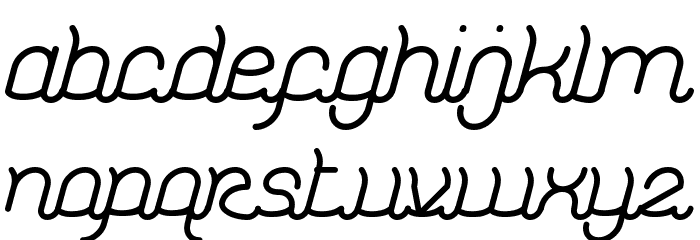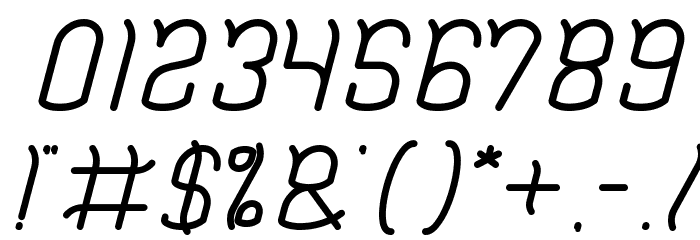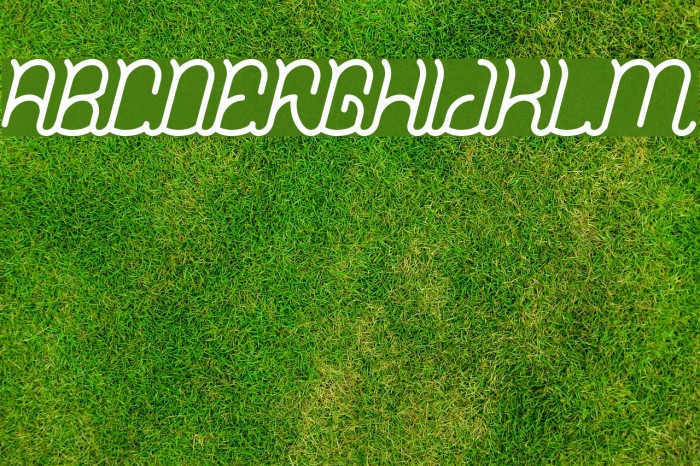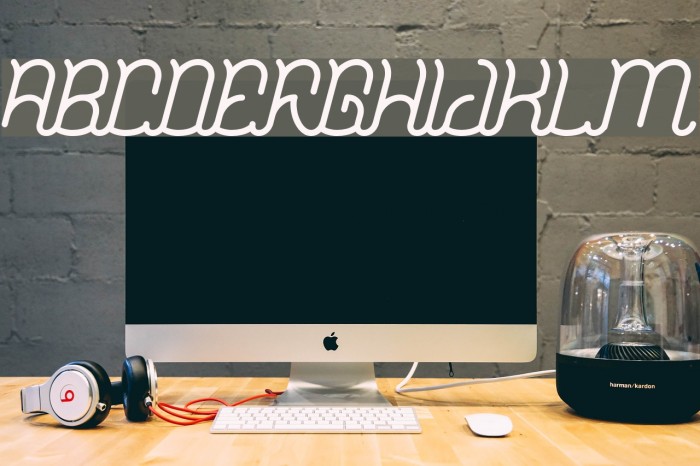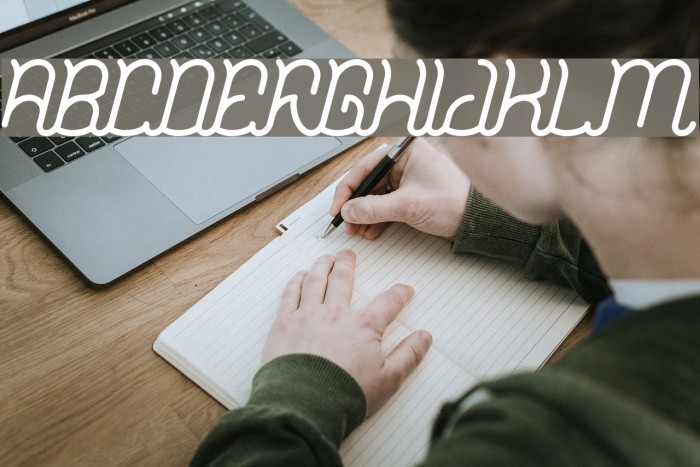
Dolphin Ocean Wave Bold Font
This font features a fluid, cursive style that mimics the gentle motion of ocean waves. The characters are interconnected, creating a seamless flow from one letter to the next. The bold strokes give it a strong presence, while the rounded edges soften the overall look, making it approachable and friendly. The uppercase and lowercase letters maintain a consistent style, with slight variations in height and width that add a dynamic touch. Numbers and special characters are designed to match the flowing aesthetic, ensuring a cohesive appearance across all text elements.
A bold, cursive font with interconnected, wave-like strokes.
- Proposed Projects: Ideal for branding projects, ocean-themed designs, or any creative work requiring a bold, flowing script.
- Use Case: Logos, Headlines, Creative projects